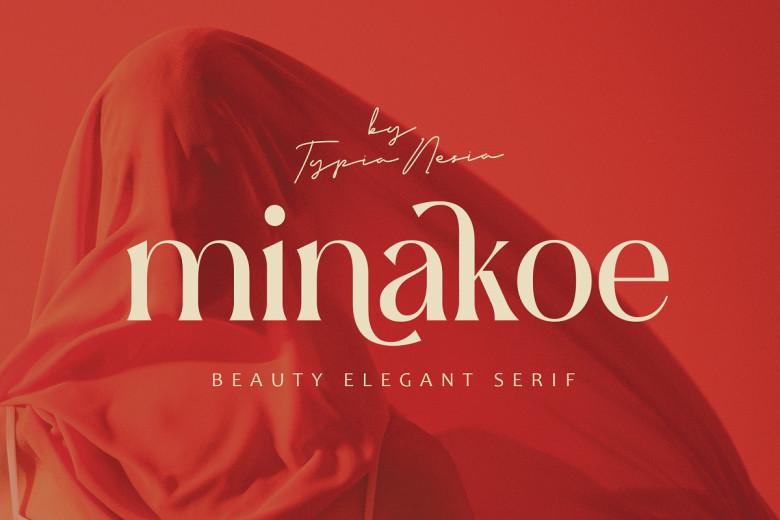
Minakoe—Beautiful Elegant Aesthetic Serif—Modern Novelty Feminine Logo Brand Font, Minakoe comes with many alternative characters and ligatures, so you can mix and match them smoothly to create just the typography design you want. It is perfect for your coming projects. For example, the logos and branding of luxury goods; high-grade publications, women’s magazines and cosmetic brands; advertisements for fashion; art galleries/Museum labels for Museum Gold Maxzhou,
Minakoe Serif Font